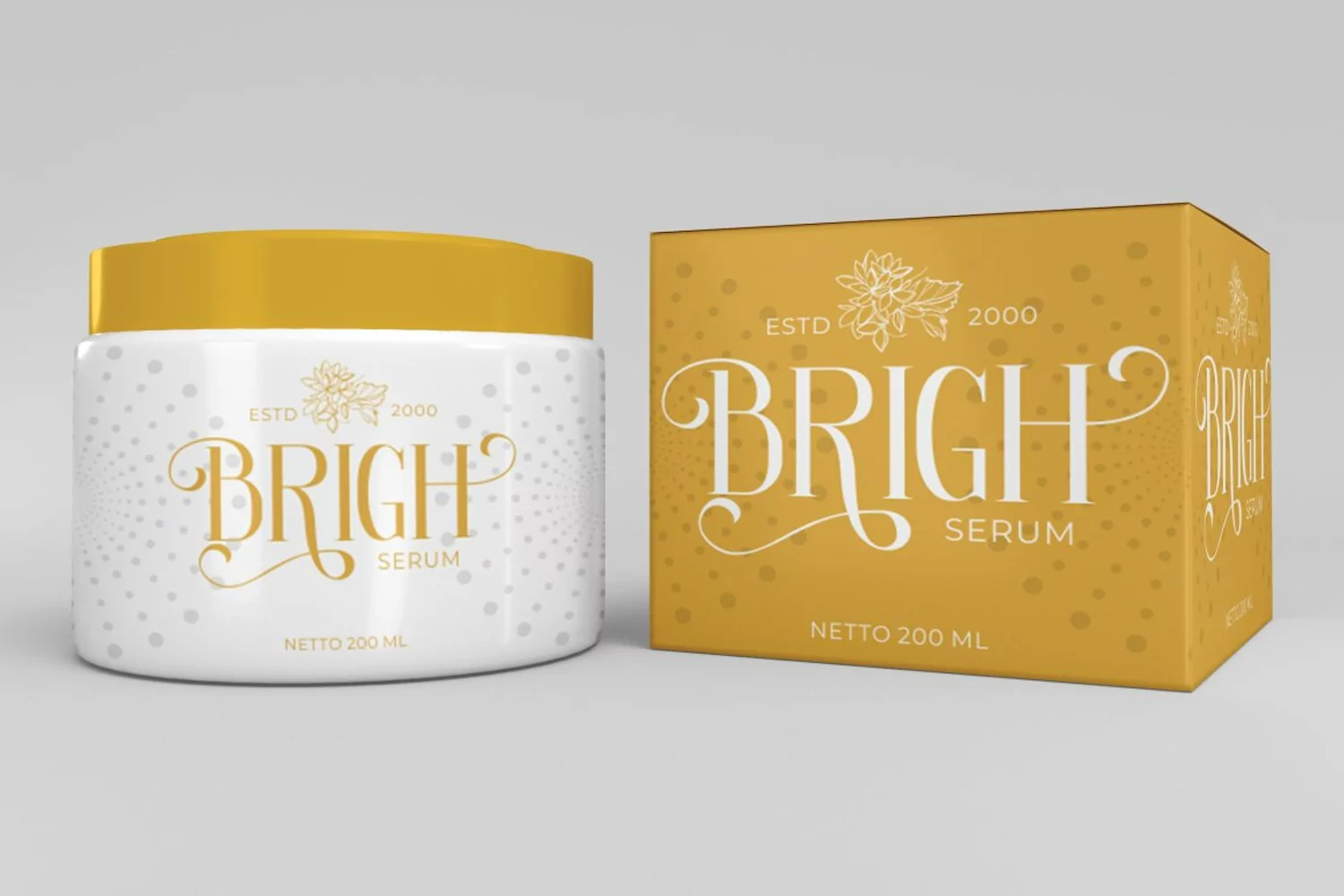
Arash - Vintage Serif Font
Arash - Serif Font
Introducing a new modern serif font called “ Arash “. Inspired from vintage typography and lettering in the classic poster and we combine with modern typography style. With Arash, you can make letter combinations for lettering with a lot of options.
Come with open type feature ( a lot of alternates and end swash), its help you to make great lettering.
Arash best uses for Logotype, heading,cover, poster, logos, quotes, product packaging, header, merchandise, social media & greeting cards and many more.
Arash font is also support multi language.
Comes with feature :
- Opentype (Alternates And Ligatures)
- Number, Punctuation And Symbols
- Multilanguage Support.